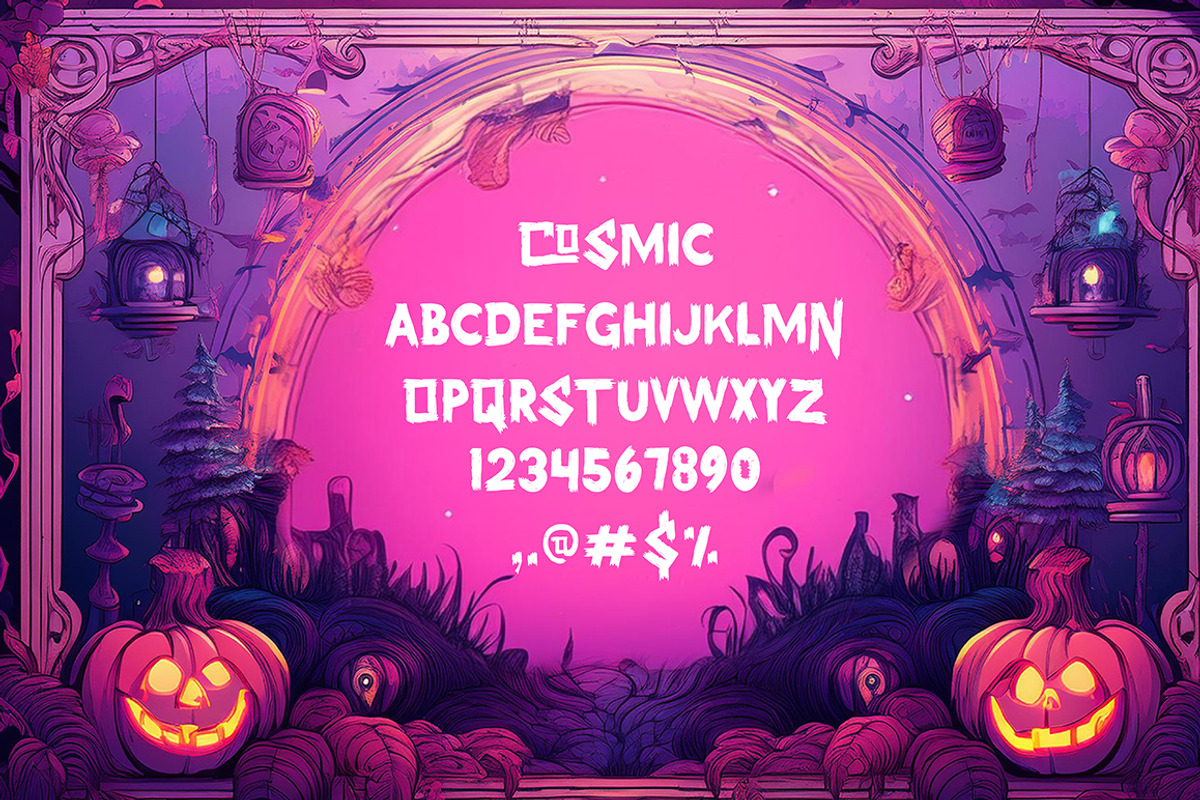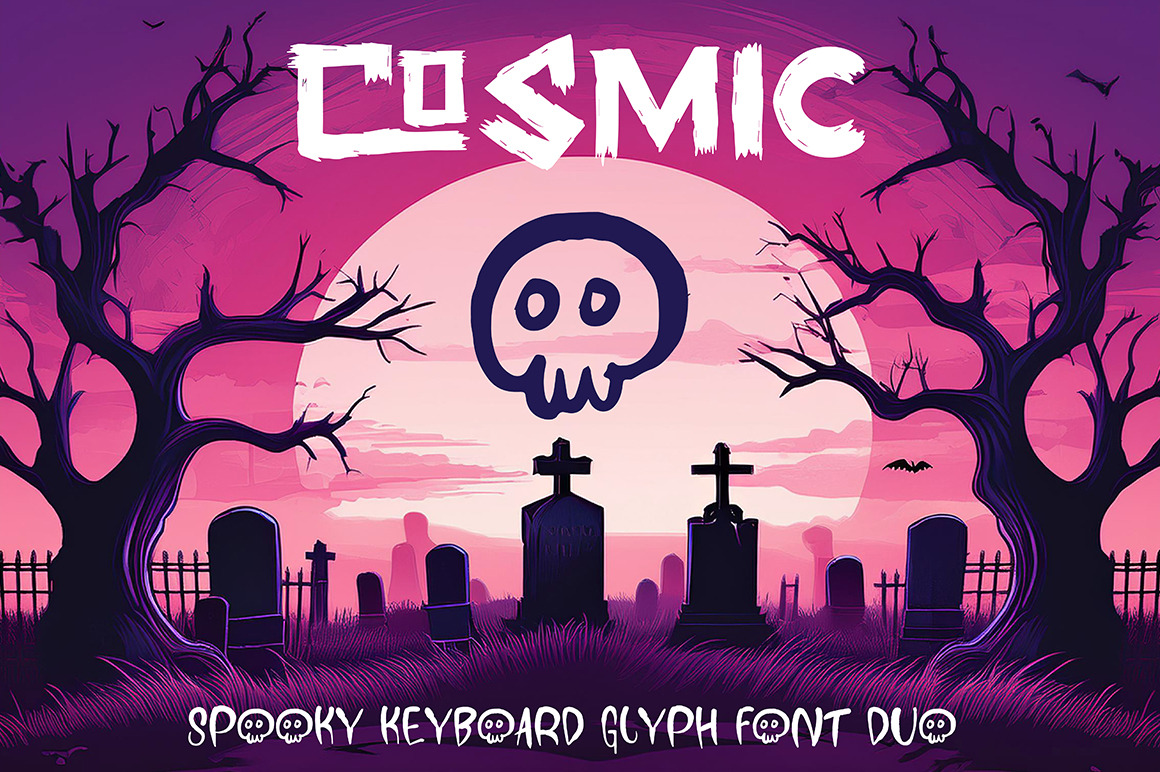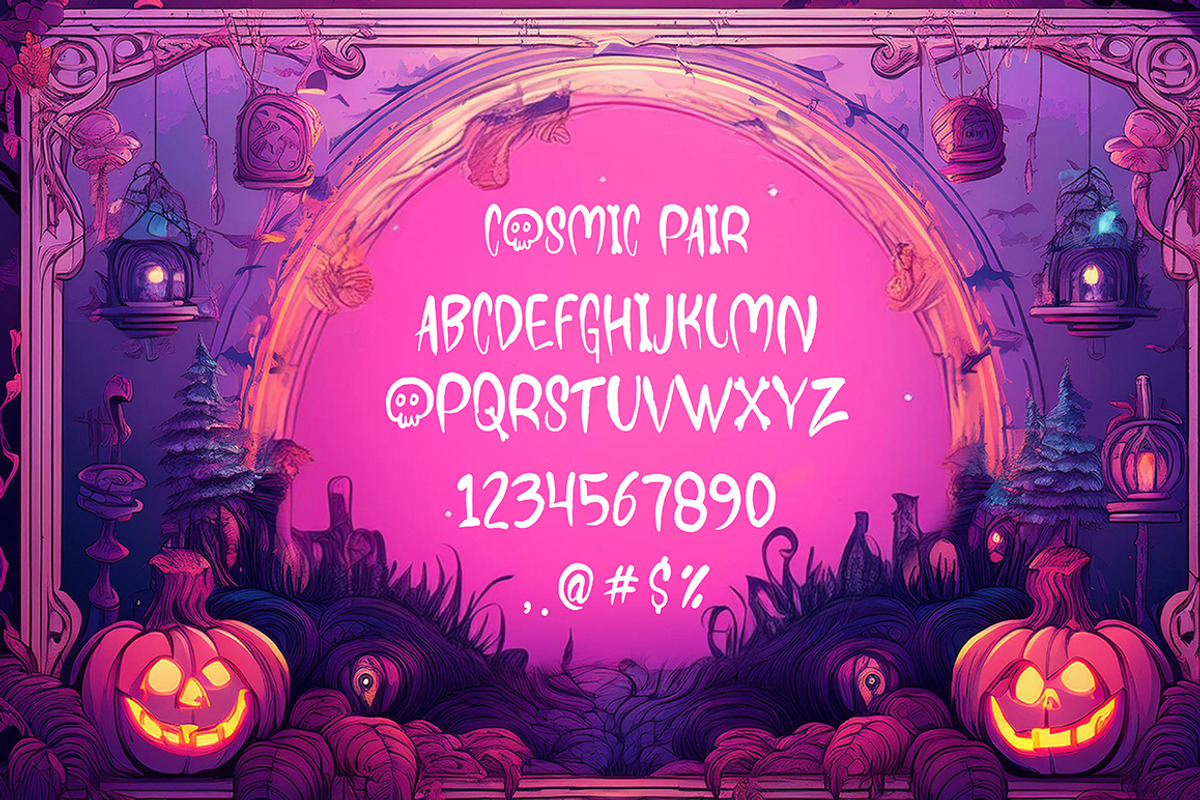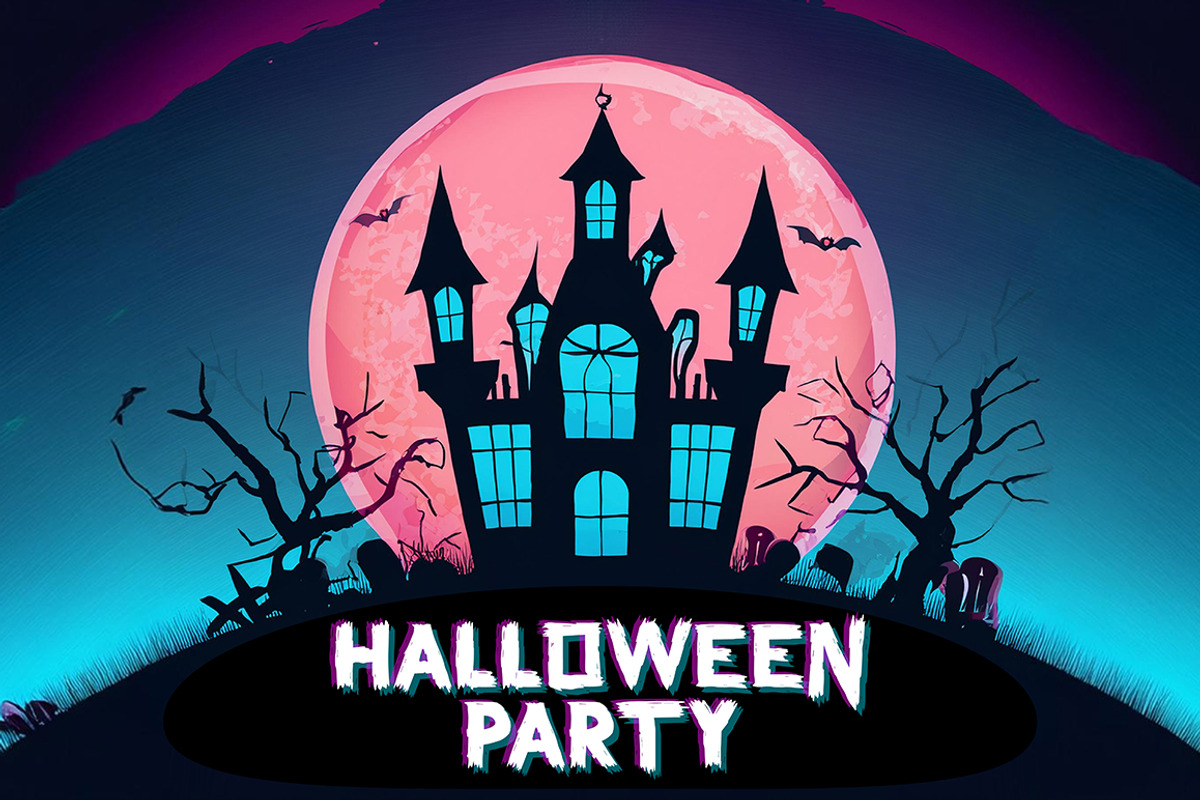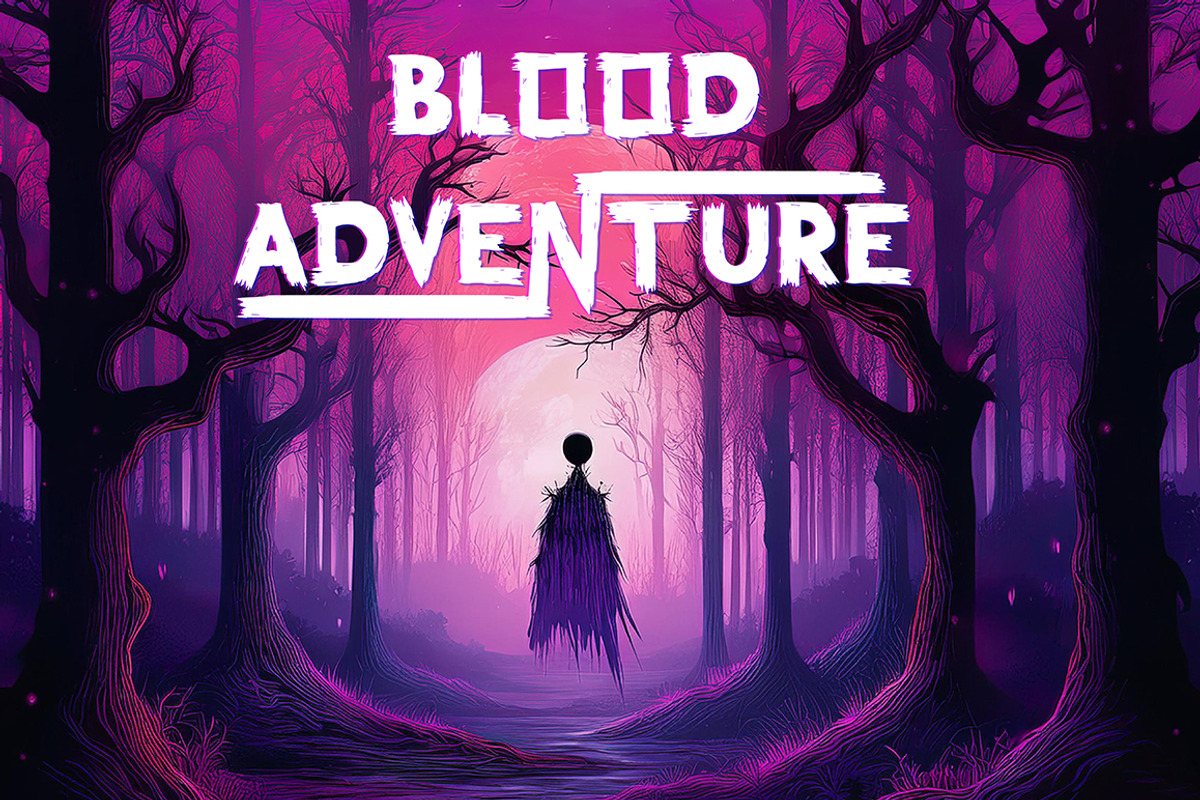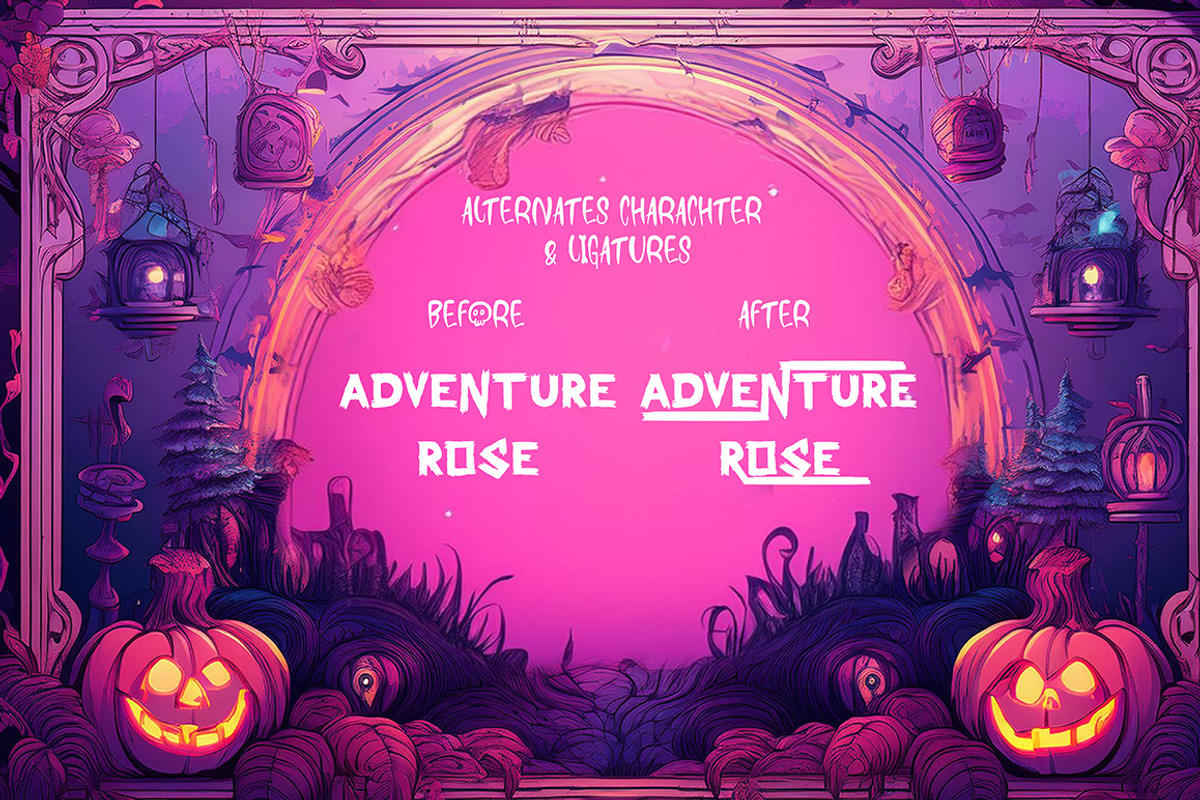
Cosmic - Halloween Font Duo
Introducing our spooktacular Halloween font duo called COSMIC.
Comes with 2 styles, The primary font features a rough, jagged edge perfect for adding a touch of haunting charm to your designs.
Its distressed look evokes the gritty atmosphere of the Halloween season. Paired with dynamic brush-style font, this set is perfect for creating eye-catching titles, posters, and invitations with a spooky flair. Together, they offer a perfect balance of ruggedness and artistic expression, ideal for all your seasonal projects.